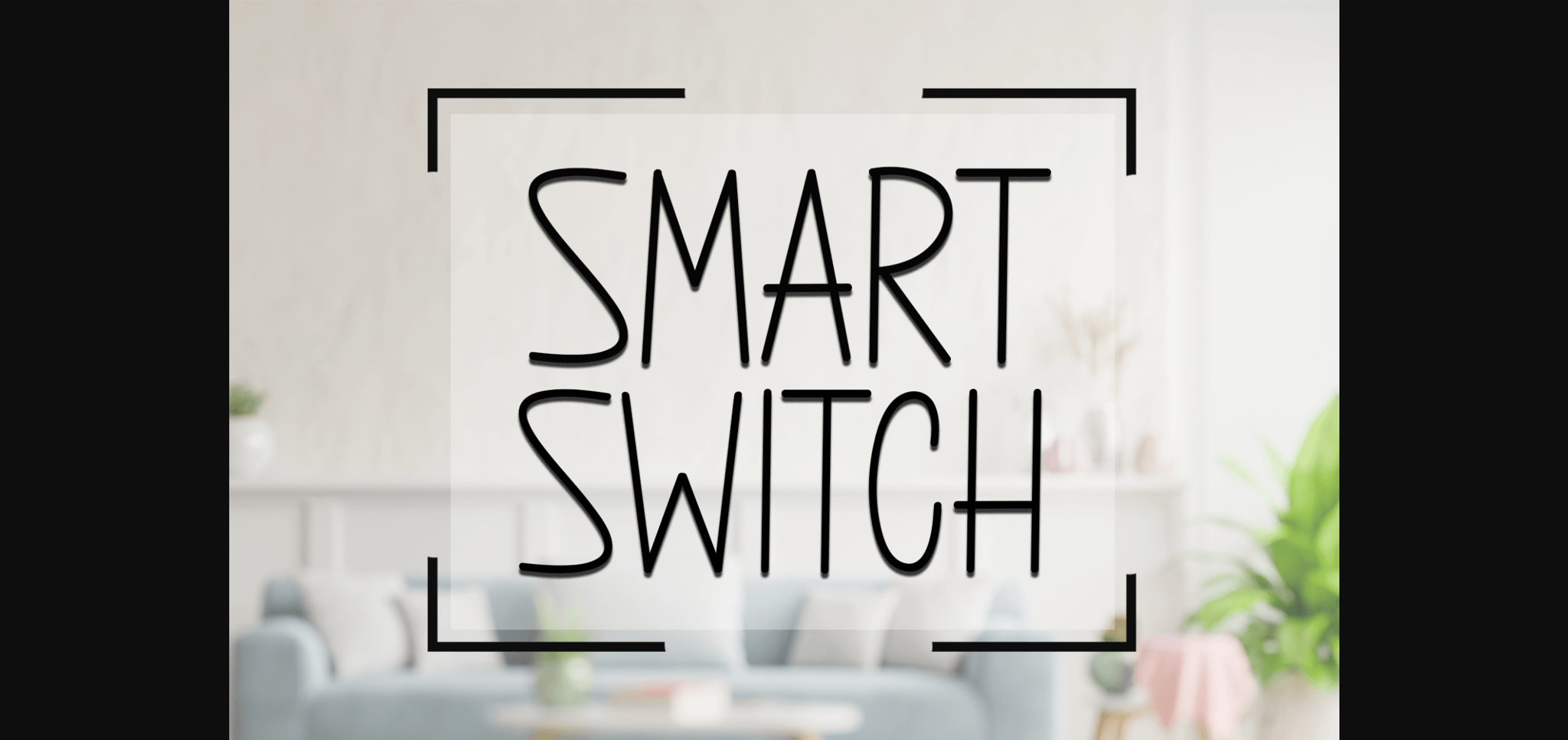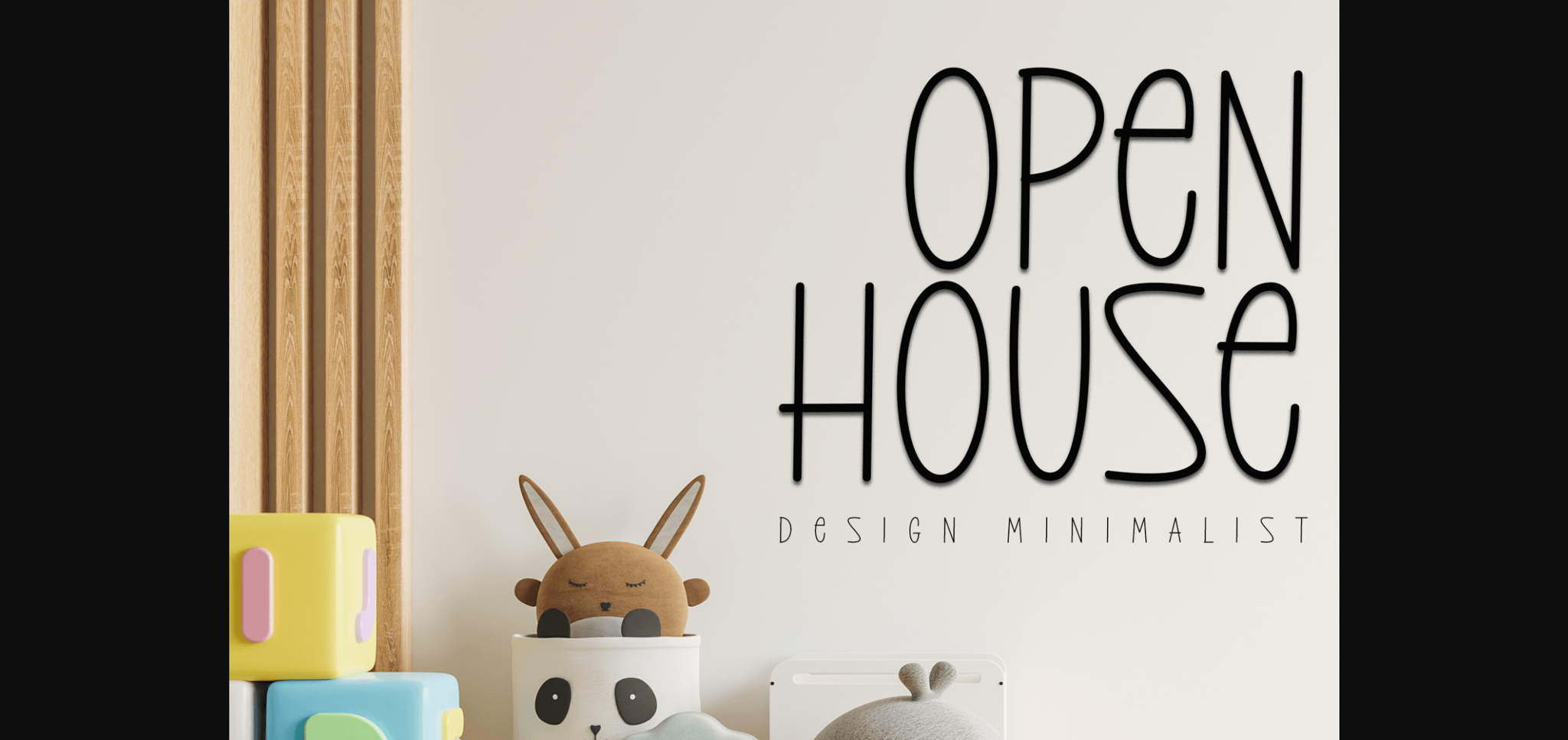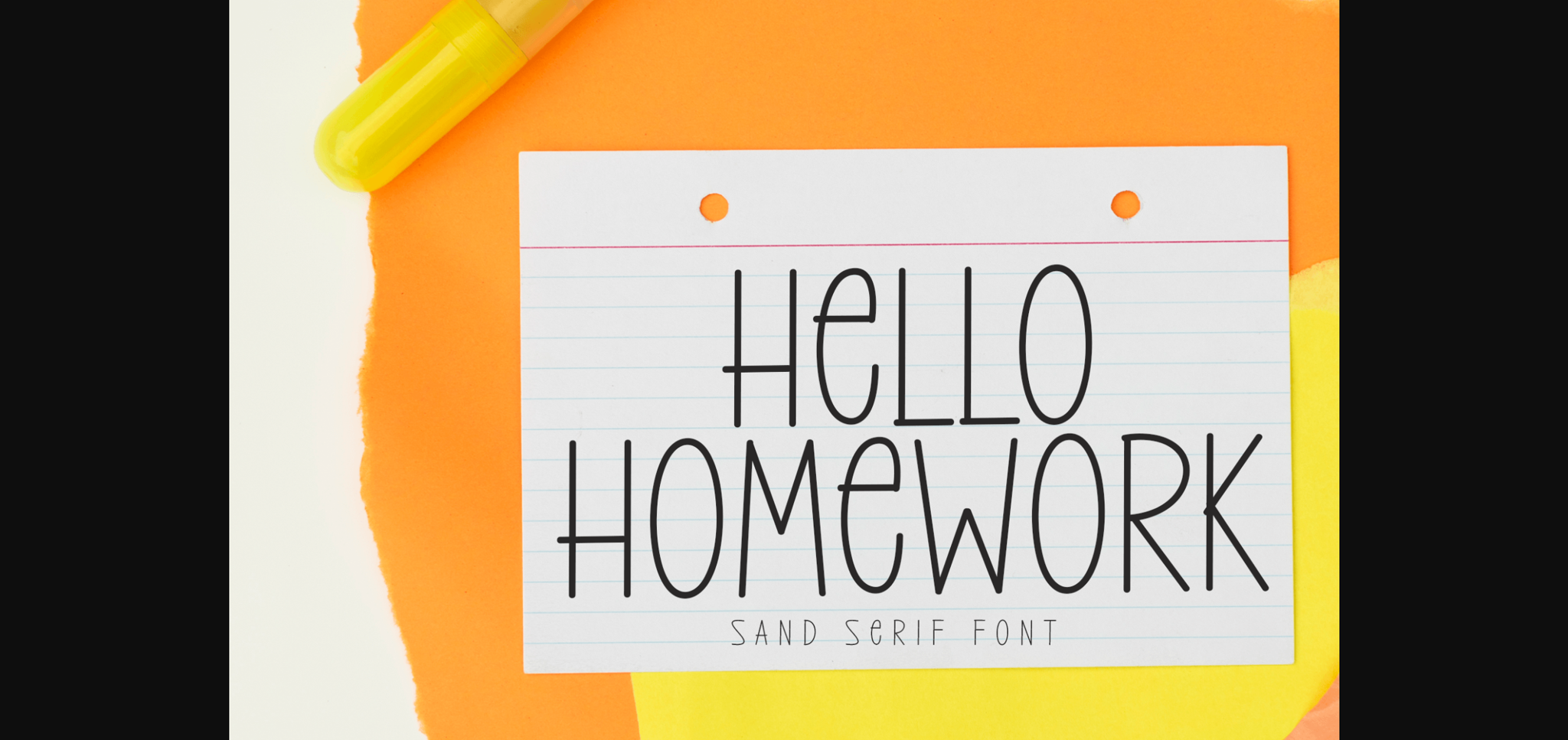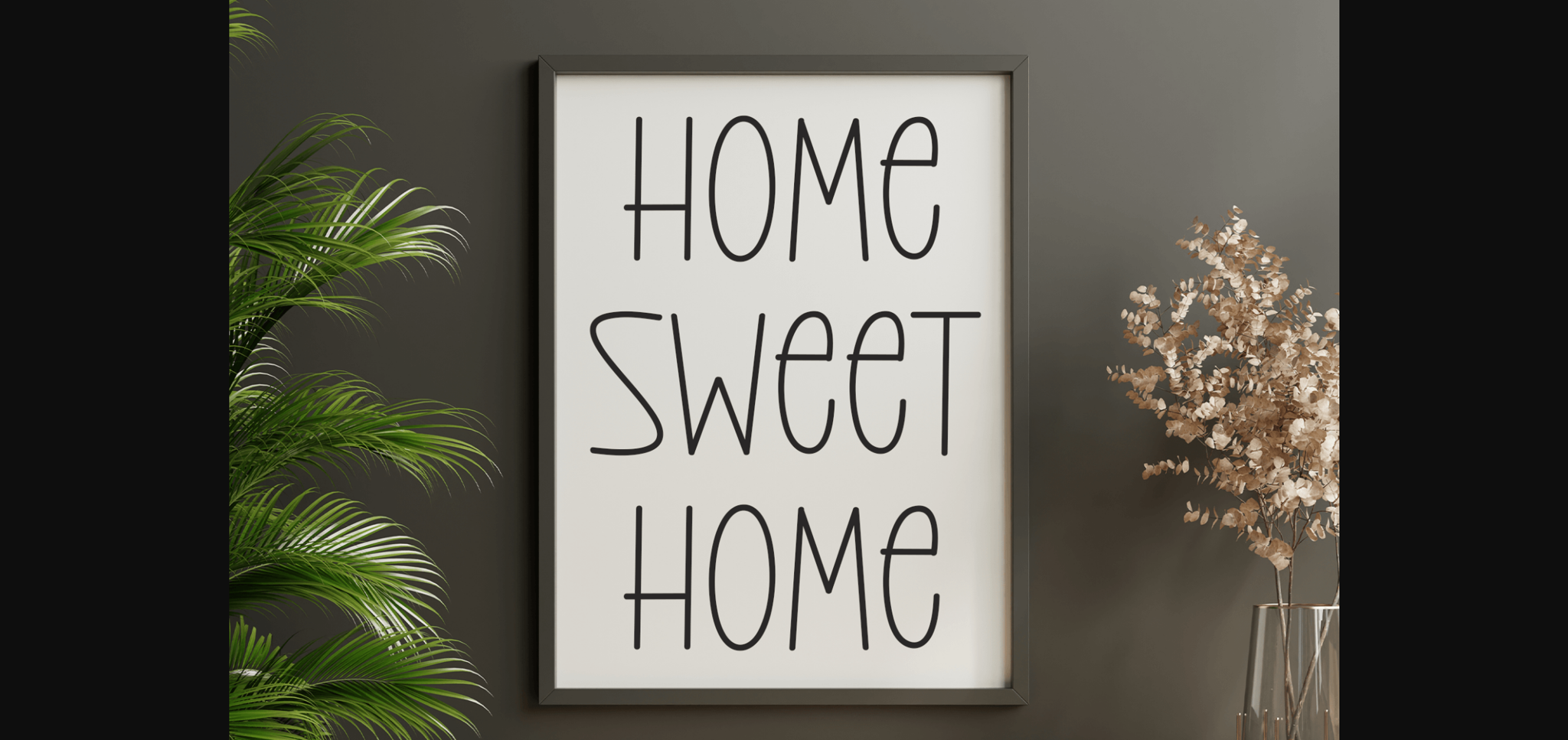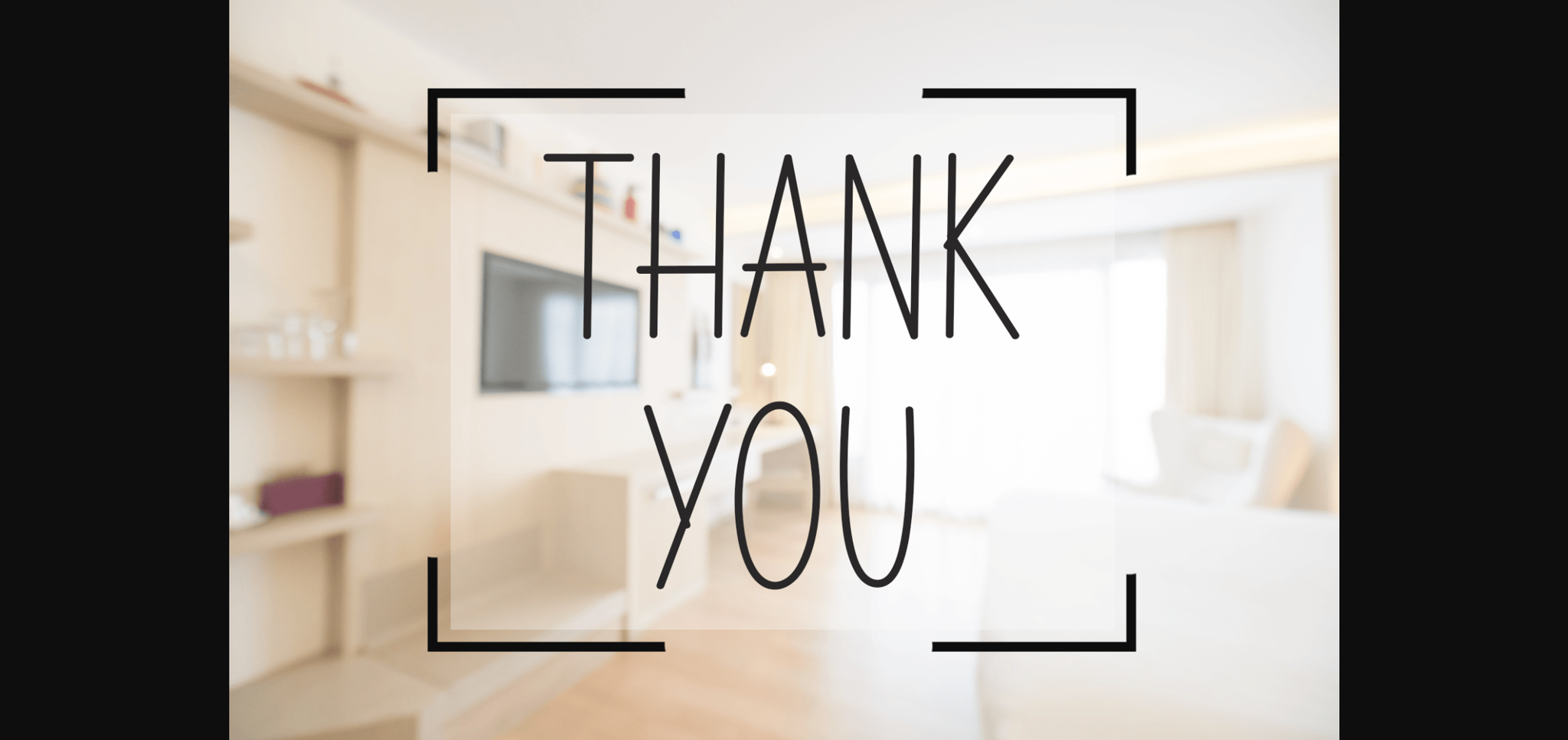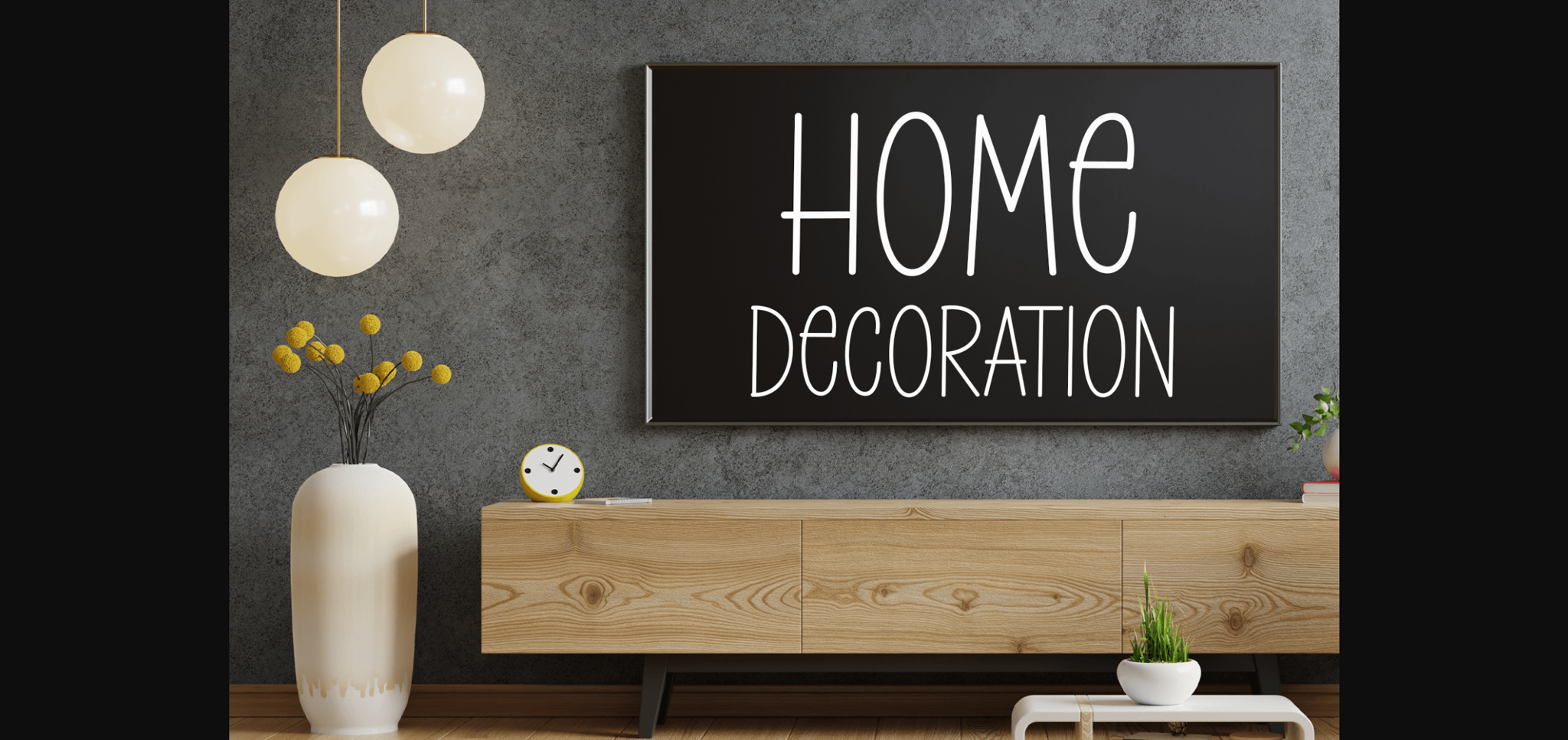
Smart Switch Font
About Smart Switch Font
Smart Switch is a neat and casual sans serif font. It can easily be matched to an incredibly large set of projects, so add it to your creative ideas and notice how it makes them stand out!